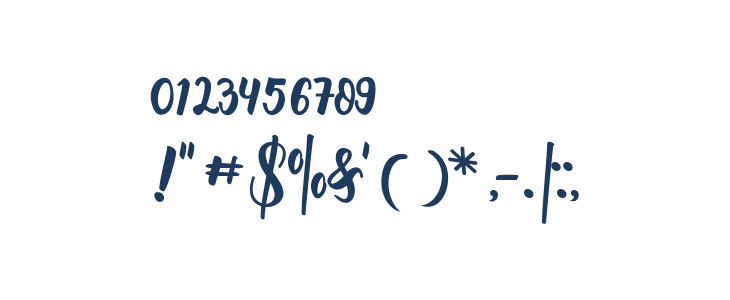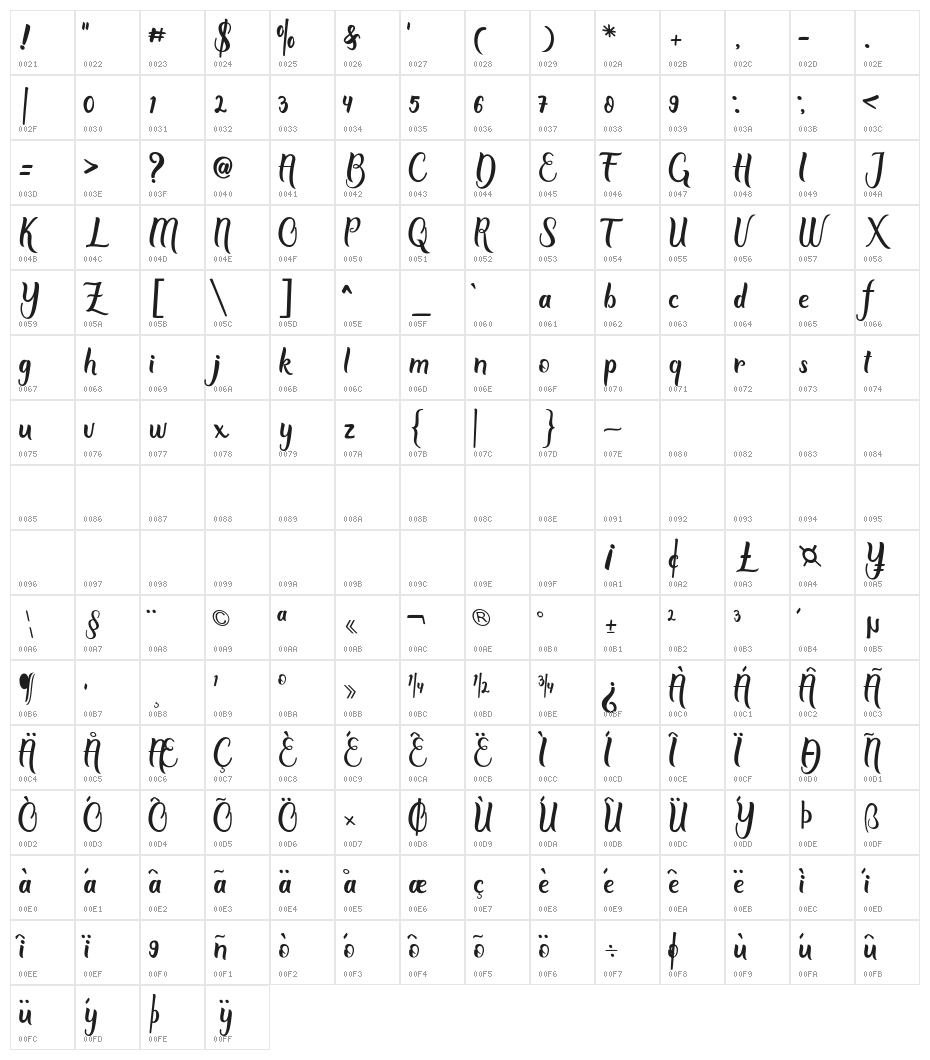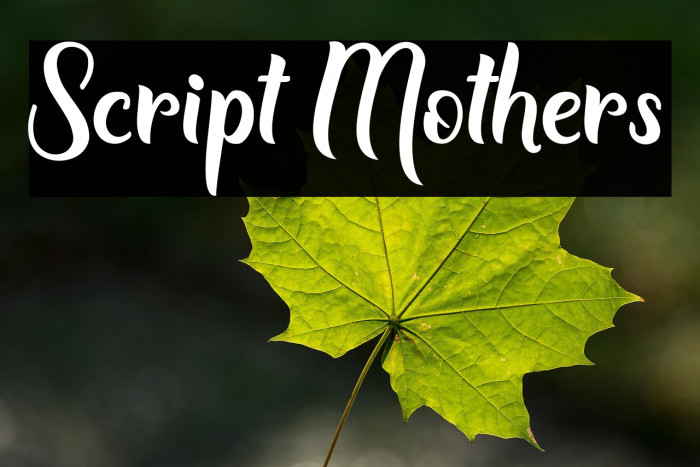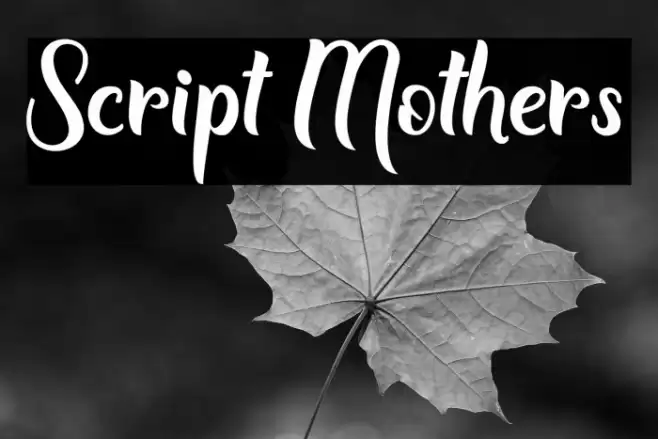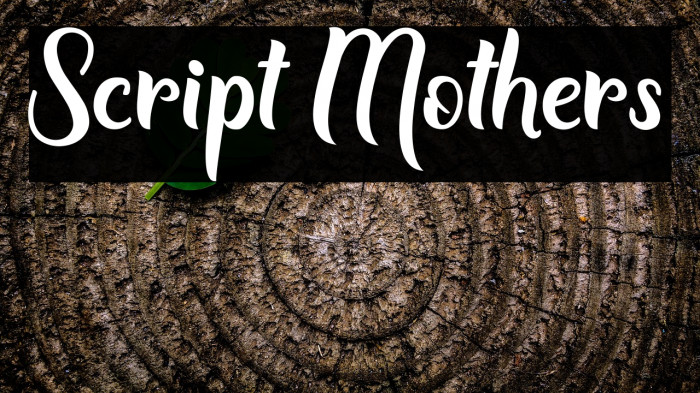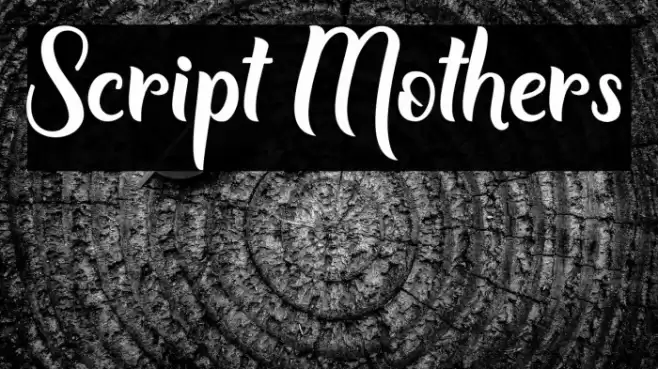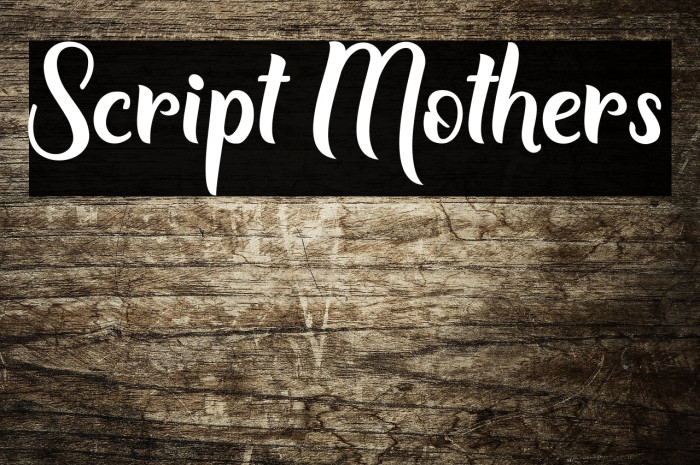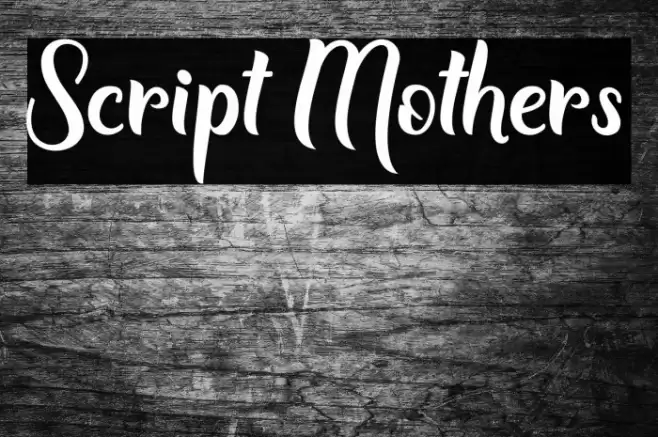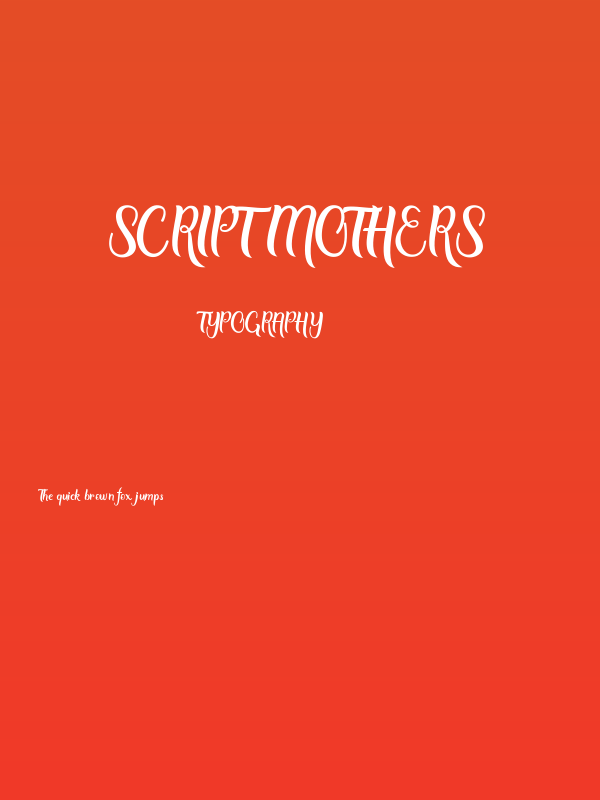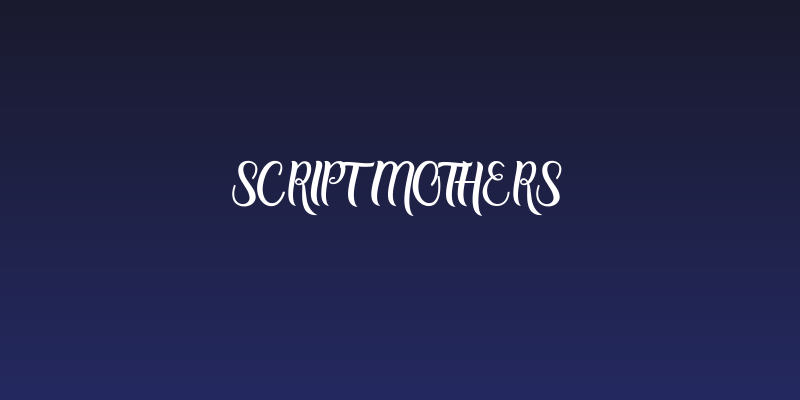
Script Mothers Font
Script Mothers Description
This font features a dynamic and flowing script style, characterized by its elegant curves and fluid strokes. The uppercase letters exhibit a graceful, sweeping motion, while the lowercase letters maintain a consistent rhythm that enhances readability. The numerals are designed with a similar flair, ensuring cohesion across all characters. Special characters are thoughtfully integrated, maintaining the overall aesthetic. This font exudes a sense of sophistication and creativity, making it ideal for projects that require a personal touch.